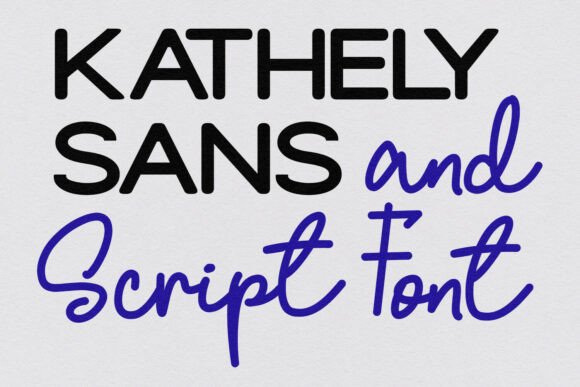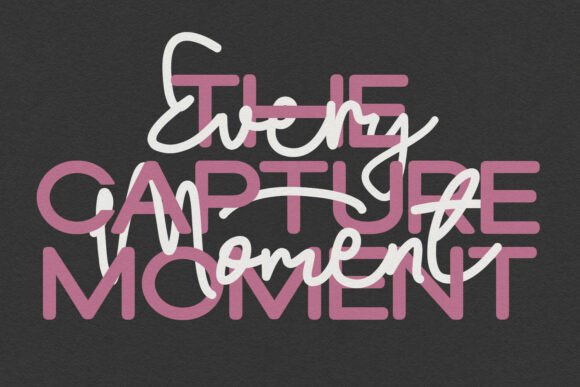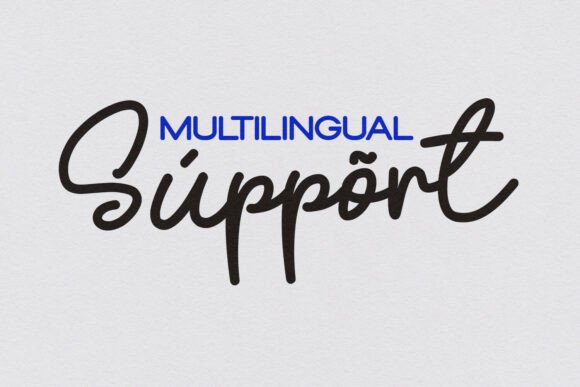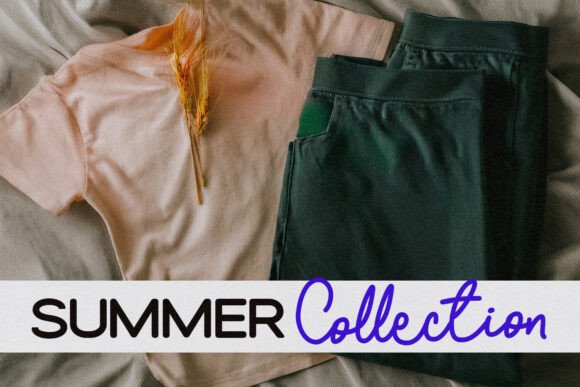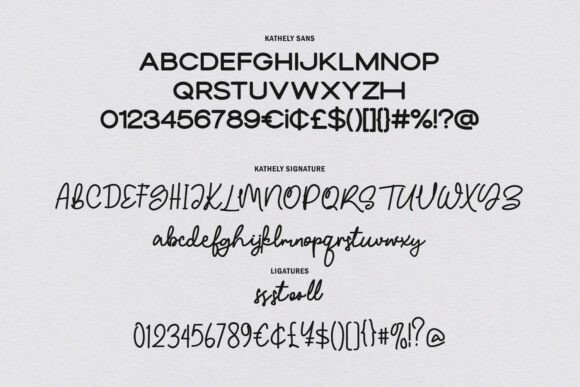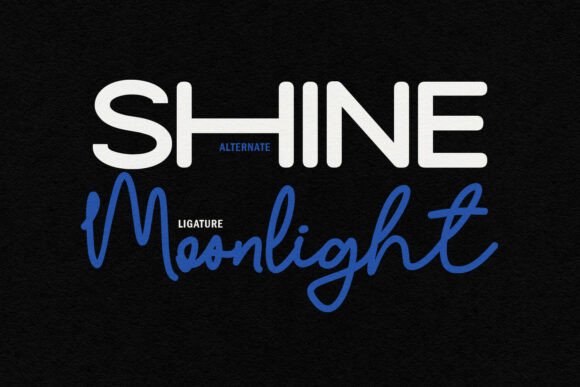
Introduction to Kathely Font Font
Fonts play a crucial role in design, and the Kathely Font font is a typeface that brings both character and versatility to any project. Whether you’re working on a branding project, a website, or a print design, the Kathely Font font offers a unique style that can elevate your work.
Kathely is a sophisticated font duo designed to bring a balanced, professional, and organic feel to your creative projects.
This pair features Kathely Sans, a clean and bold monolinear sans-serif with modern geometric touches, and Kathely Signature, a flowing, expressive script that mimics natural handwriting Perfect for branding, wedding invitations, social media graphics, and design, this duo offers seamless versatility.
Key Features of Kathely Font Font
Why Choose Kathely Font Font?
The Kathely Font font is more than just a typeface – it’s a design tool that helps you communicate your message with style and clarity. Its unique character set and versatile design make it suitable for a wide range of applications, from elegant invitations to bold headlines.
With its carefully crafted letterforms and balanced proportions, the Kathely Font font ensures readability and visual appeal across all mediums.
What makes Kathely Font font special?
The Kathely Font font stands out with its unique design, exceptional readability, and versatility across various design applications.